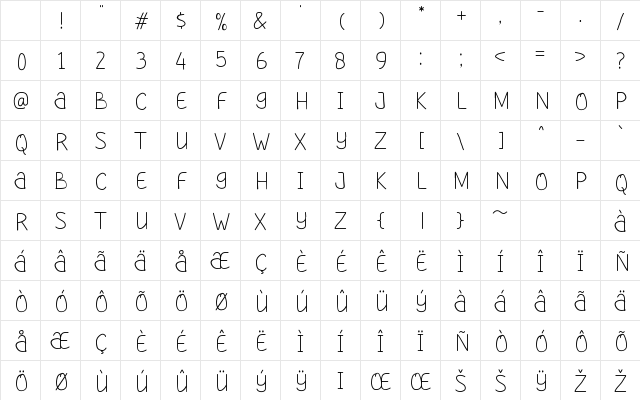
Complete Iniya Display Regular glyph index. Displaying only characters natively supported by Iniya Display Regular font.
Iniya Display is built around its visual character rather than neutral utility - its distinctive forms are designed to make an impression at display sizes.
Font Pairing: Pair with a clean neutral sans-serif for body copy to let Iniya Display's character lead without overwhelming the composition.
Pro Tip: Use Iniya Display exclusively at display sizes - it was designed to be seen, not read at length. Let a neutral companion handle body copy.